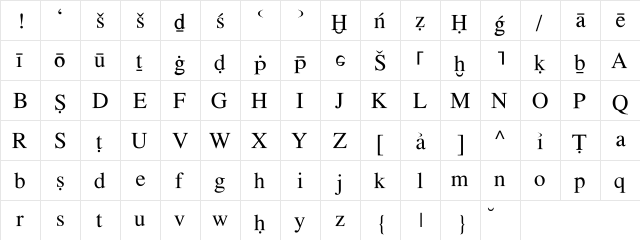
CalSemitic TR
Design Context for CalSemitic Typeface
CalSemitic takes a measured approach to typography — its balanced proportions and neutral character make it a reliable workhorse for both digital and print work.